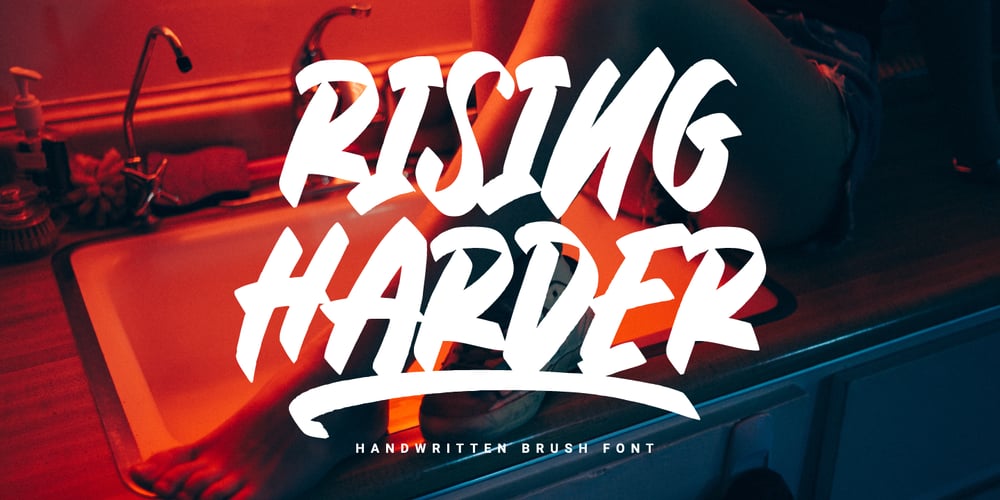
Rising Harder Font Family was designed by Prio Nurokhim Aji and published by Prioritype. Rising Harder contains 1 styles and family package options. Rising Harder – Brush Font.Rising Harder is a handwritten brush font. This is an all caps font. Looks strong and stylish. Great for merchandise designs, logos, posters, covers and more. Features: Uppercase, Lowercase, Numeral, Punctuation, Multilingual & Underline. Multilingual contained: Afrikaans, Albanian, Asu, Basque, Bemba, Bena, Breton, Catalan, Chiga, Cornish, Danish, Dutch, English, Estonian, Filipino, Finnish, French, Friulian, Galician, German, Gusii, Indonesian, Irish, Italian, Kabuverdianu, Kalenjin, Kinyarwanda, Luo, Luxembourgish, Luyia, Machame, Makhuwa-Meetto, Makonde, Malagasy, Manx, Morisyen, North Ndebele, Norwegian Bokmål, Norwegian Nynorsk, Nyankole, Oromo, Portuguese, Quechua, Romansh, Rombo, Rundi, Rwa, Samburu, Sango, Sangu, Scottish Gaelic, Sena, Shambala, Shona, Soga, Somali, Spanish, Swahili, Swedish, Swiss German, Taita, Teso, Uzbek (Latin), Volapük, Vunjo, Zulu. Thanks!